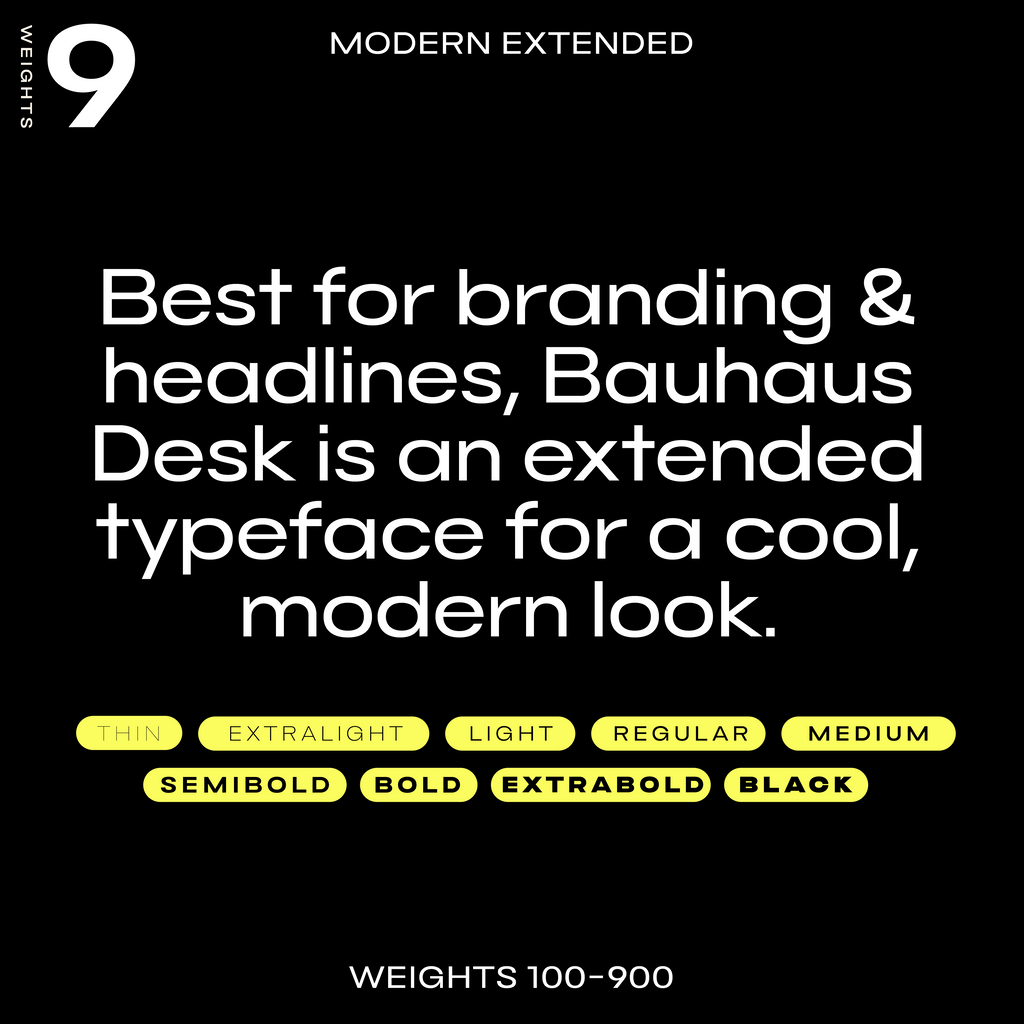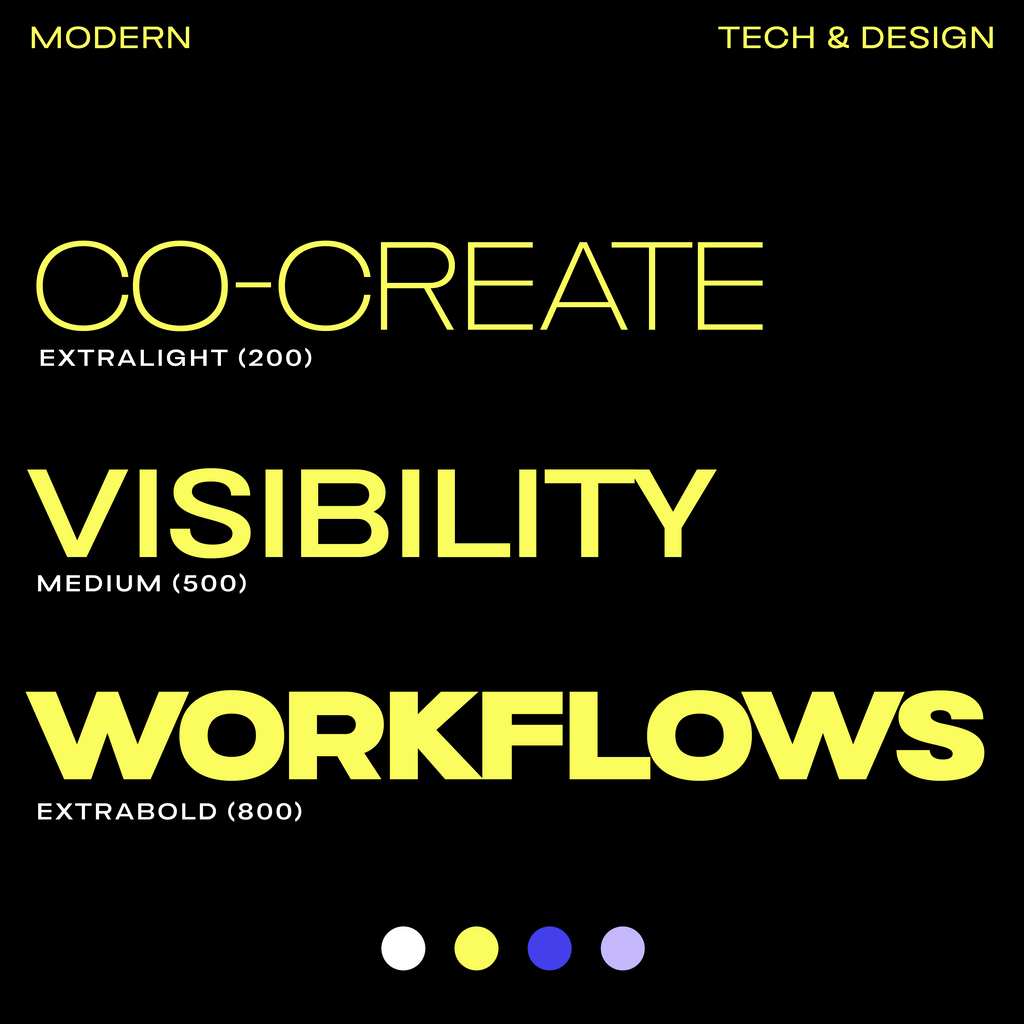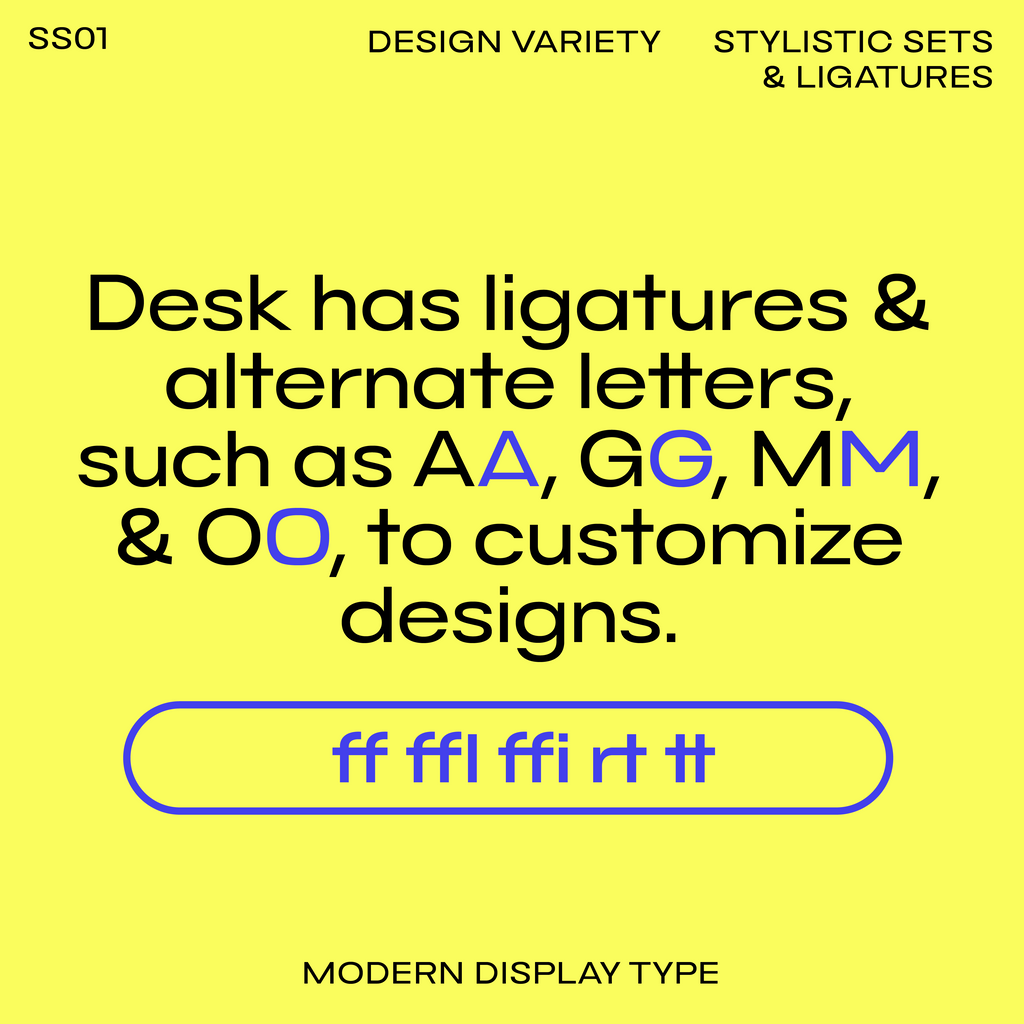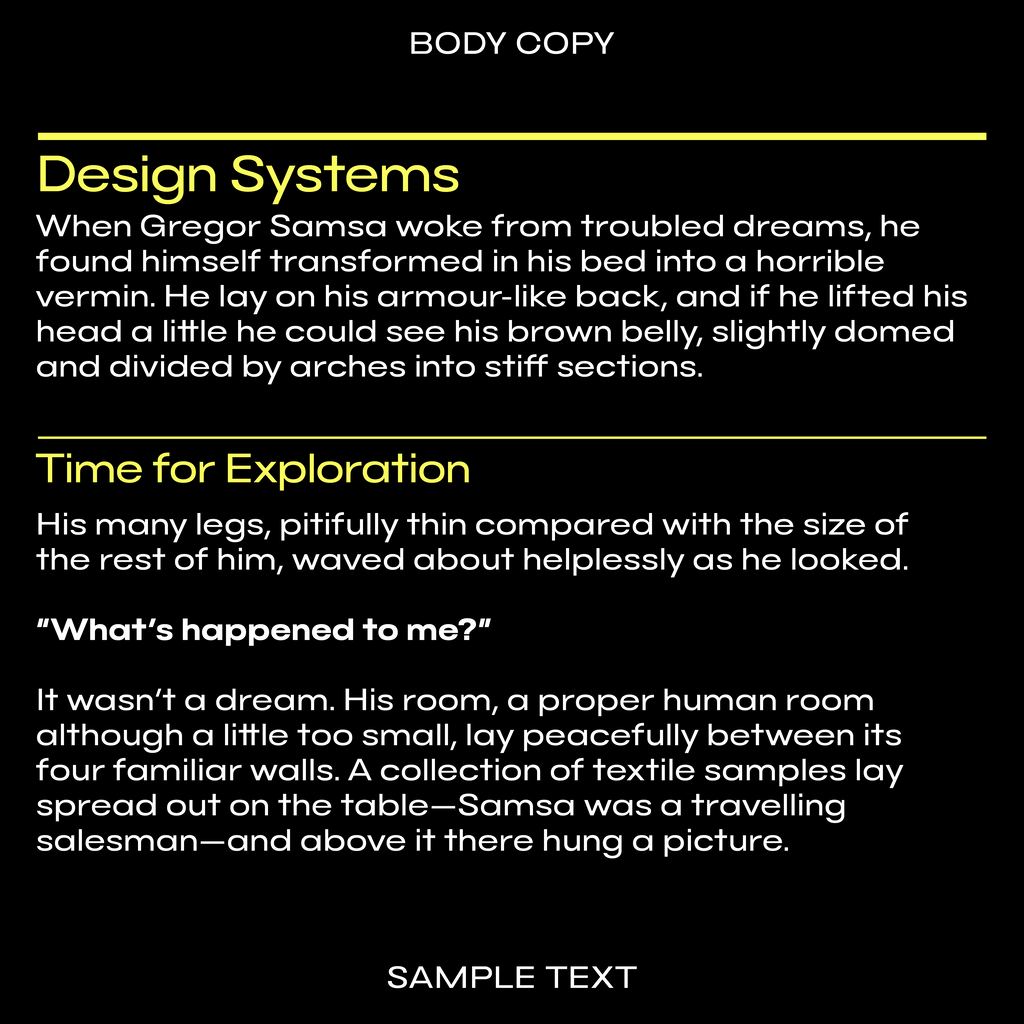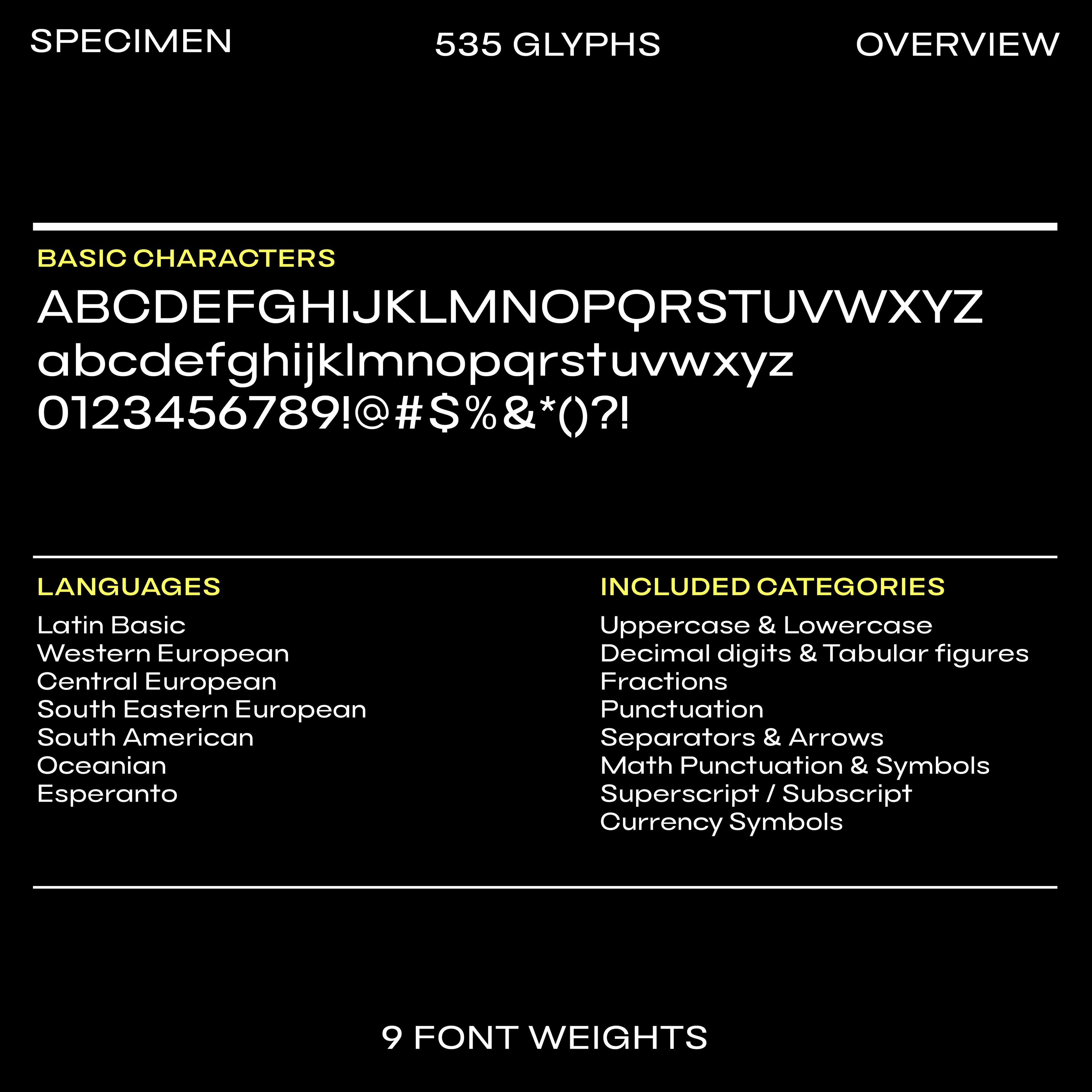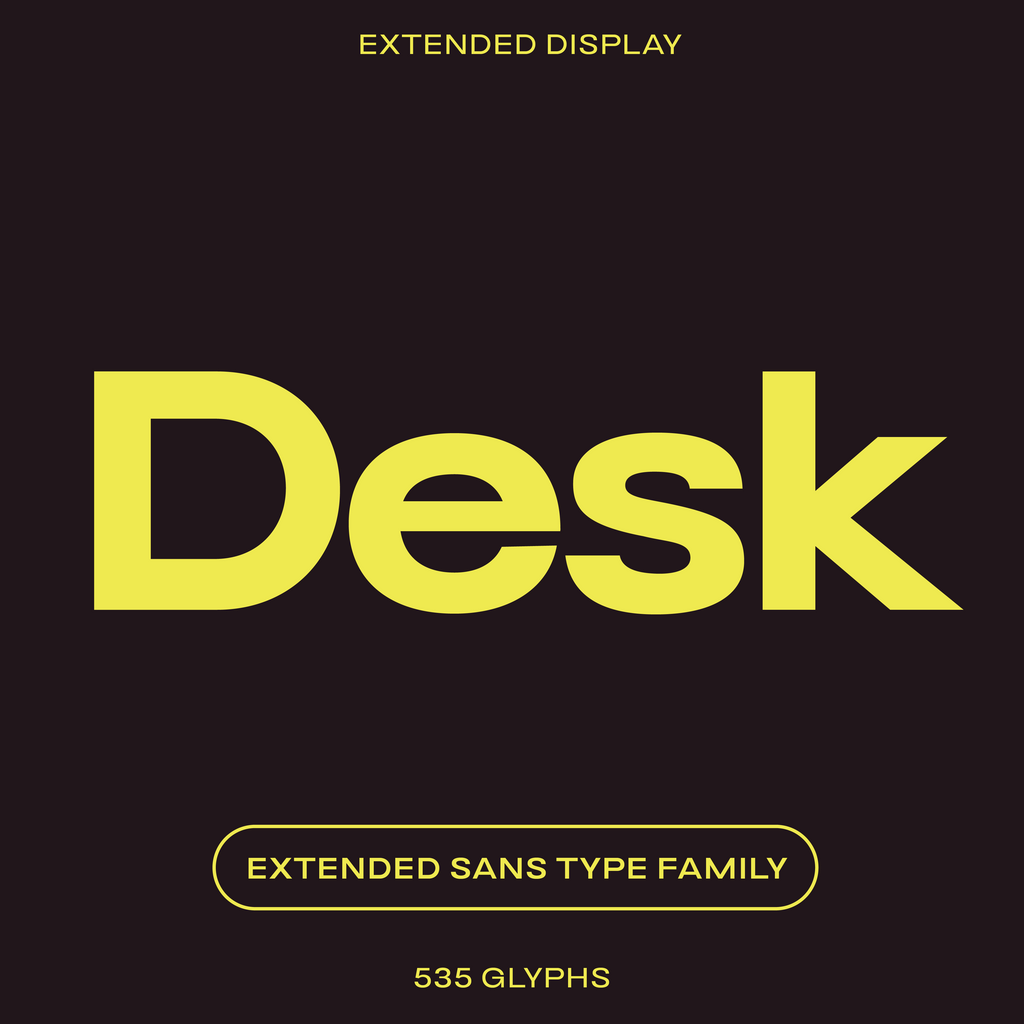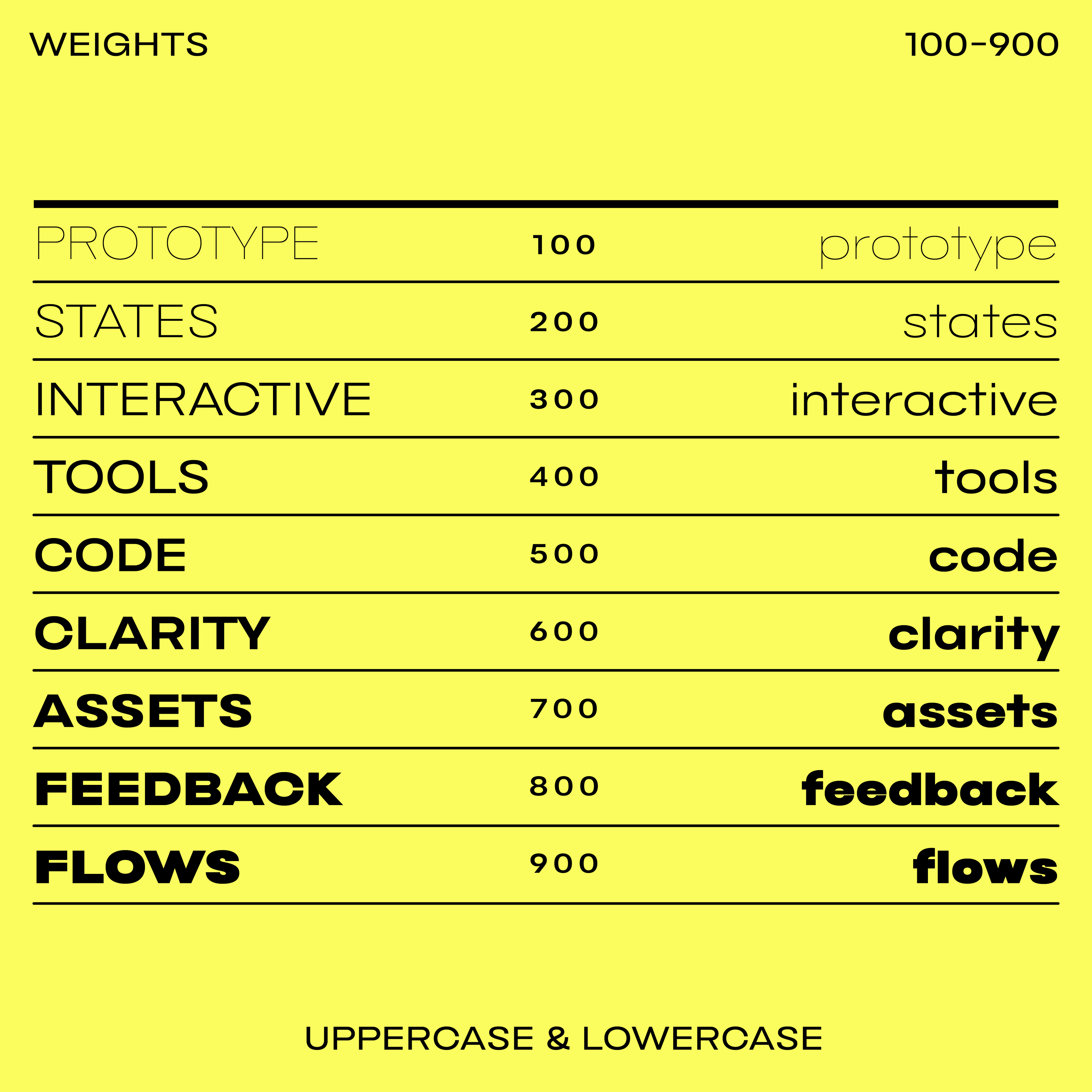
Desk—Wide, Geometric Sans Serif Font
Desk is an extended, wide font for a cool, modern look that works best for branding and headlines. This font is great for tech, beauty, and fashion branding. Font style used by Chanel, Maybelline, and L’Oréal. Desk has ligatures & alternate letters, such as 2 options for A, G, M, and O, to customize designs. Available in 9 font weights and as a full family.